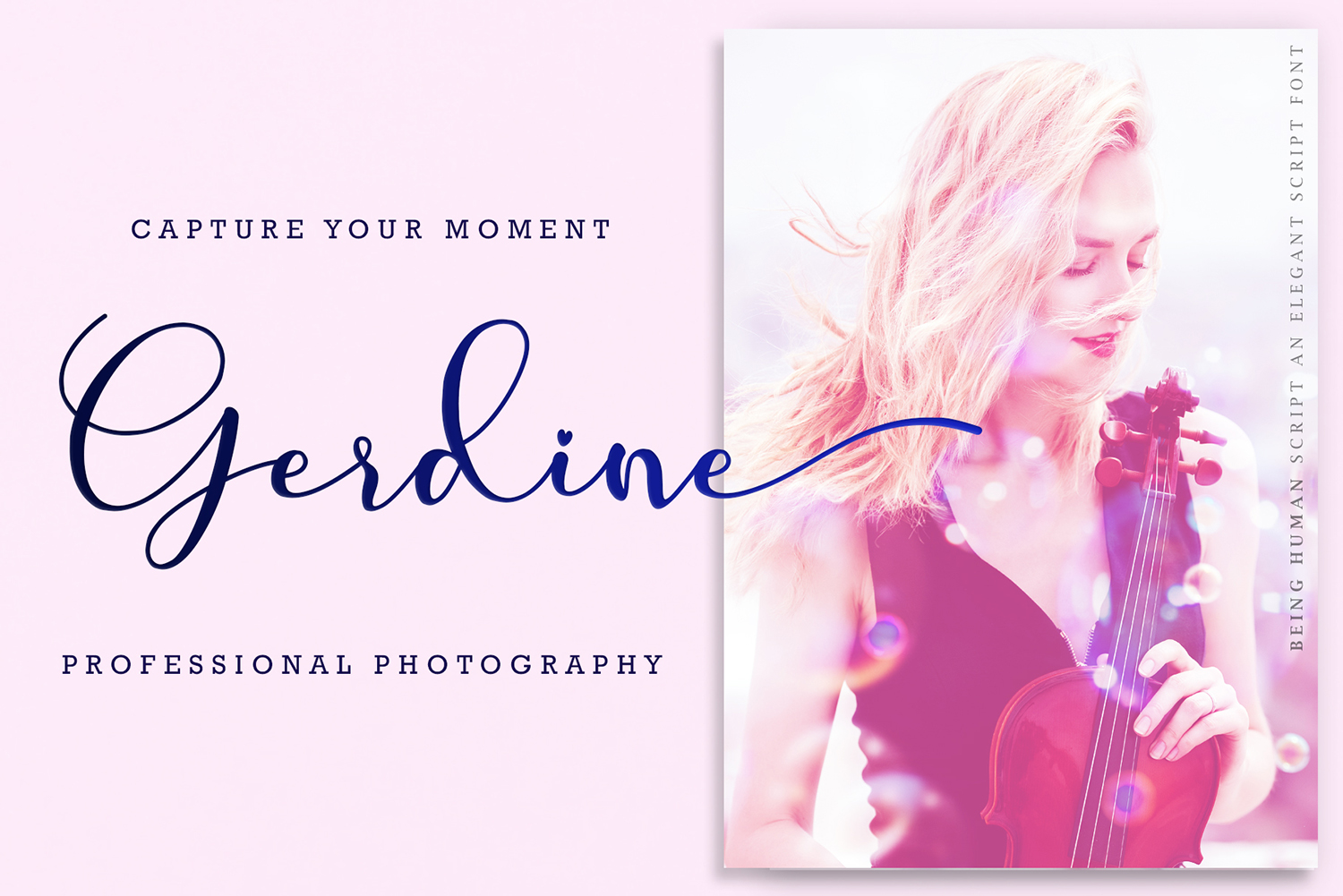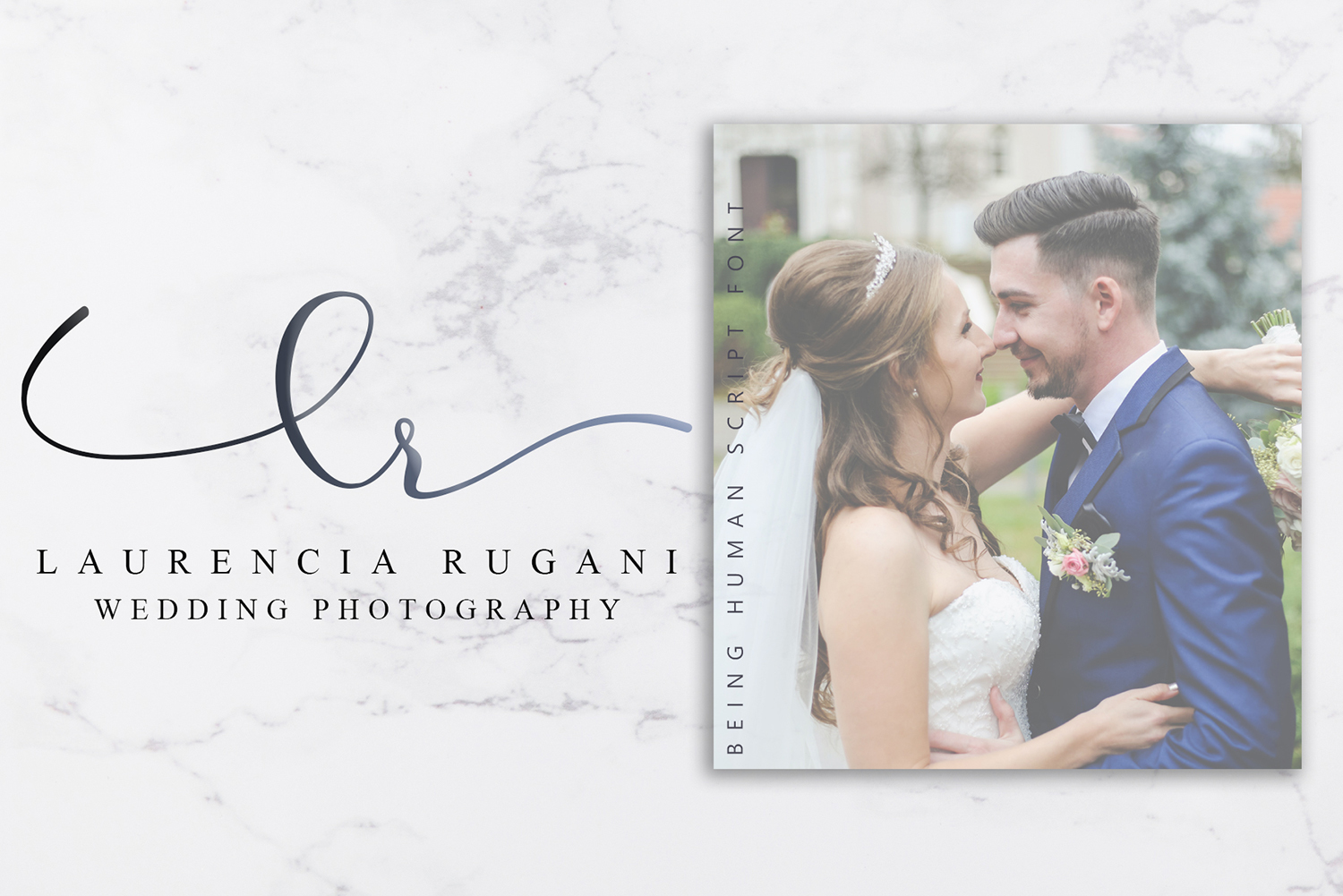
Being Human Free Font
Introducing Being Human Free Font the captivating script font that shines with brilliance. A valuable addition to your fonts’ library, this versatile typeface is the perfect asset for all topics and creations. Embrace the boundless potential of “Being Human” as it effortlessly elevates every design it touches. Unlock the true essence of creativity and watch your projects soar to new heights with the help of this extraordinary font. Don’t miss the chance to enhance your work with the timeless beauty of Being Human. This free typeface was designed by a talented Sarif Hidayat. If you like it don’t forget to check out the full version.